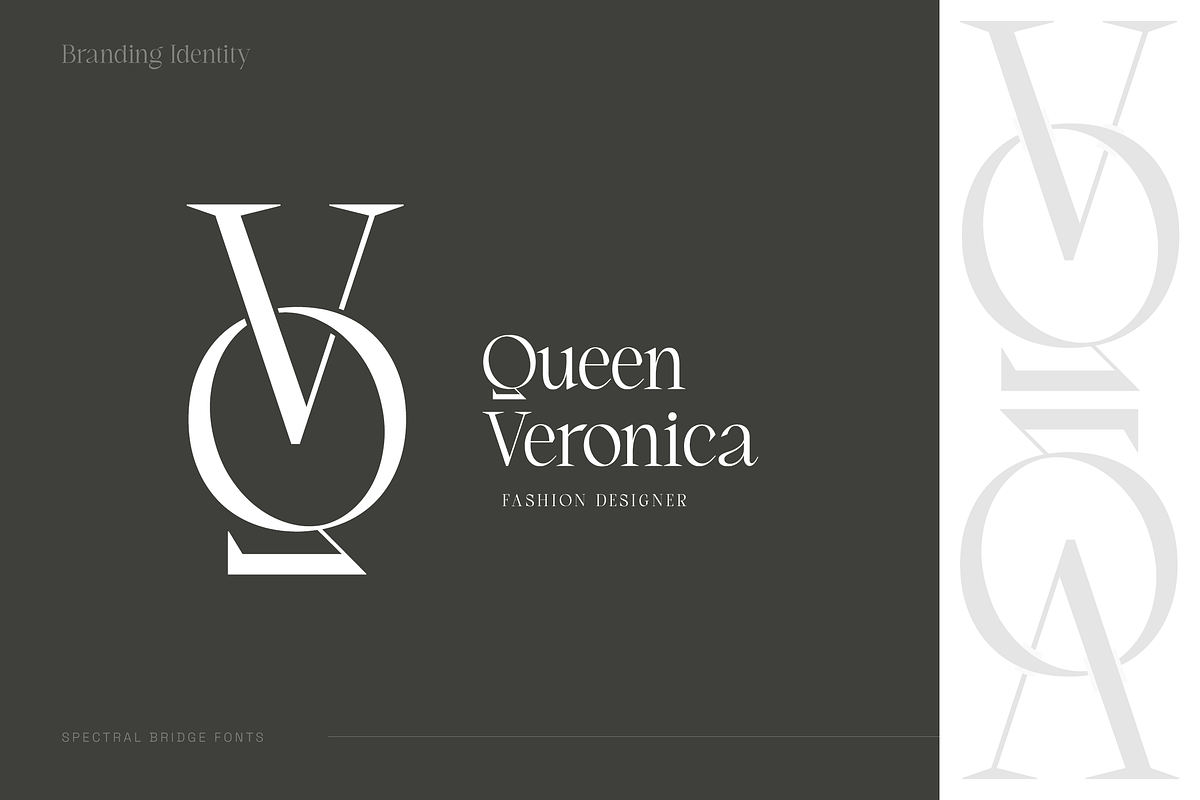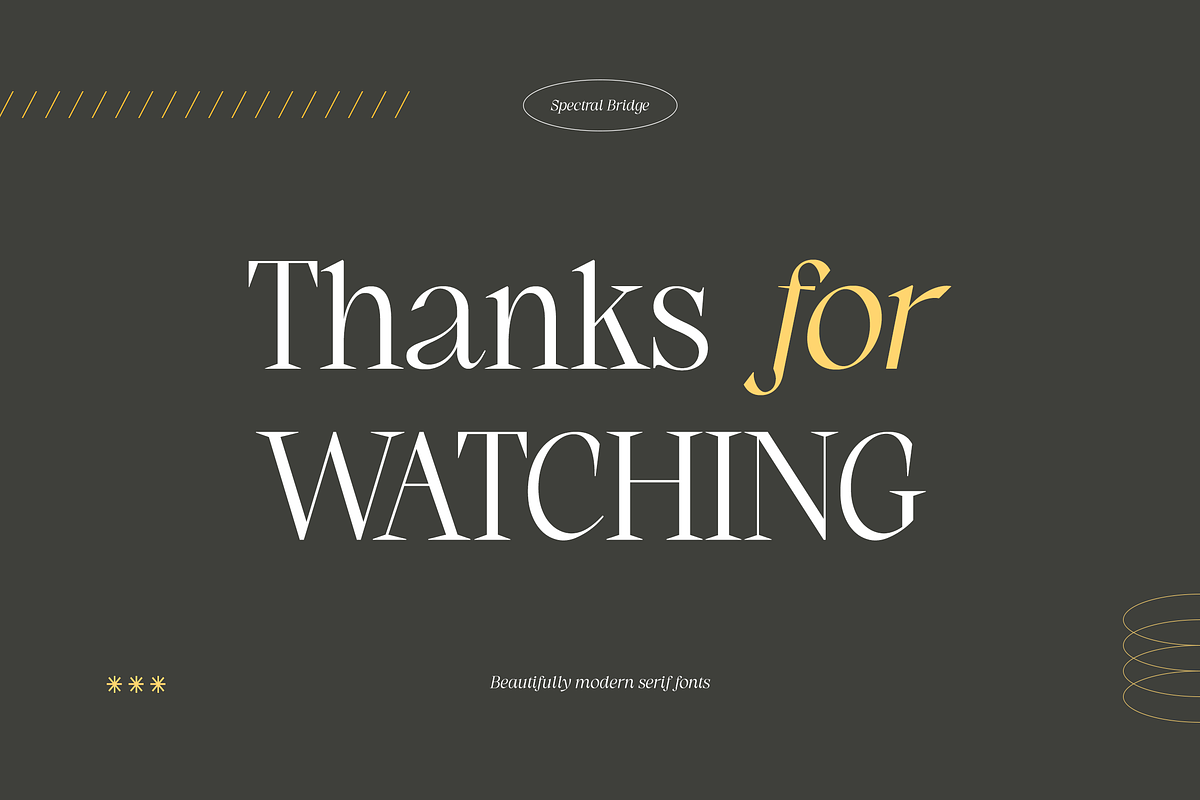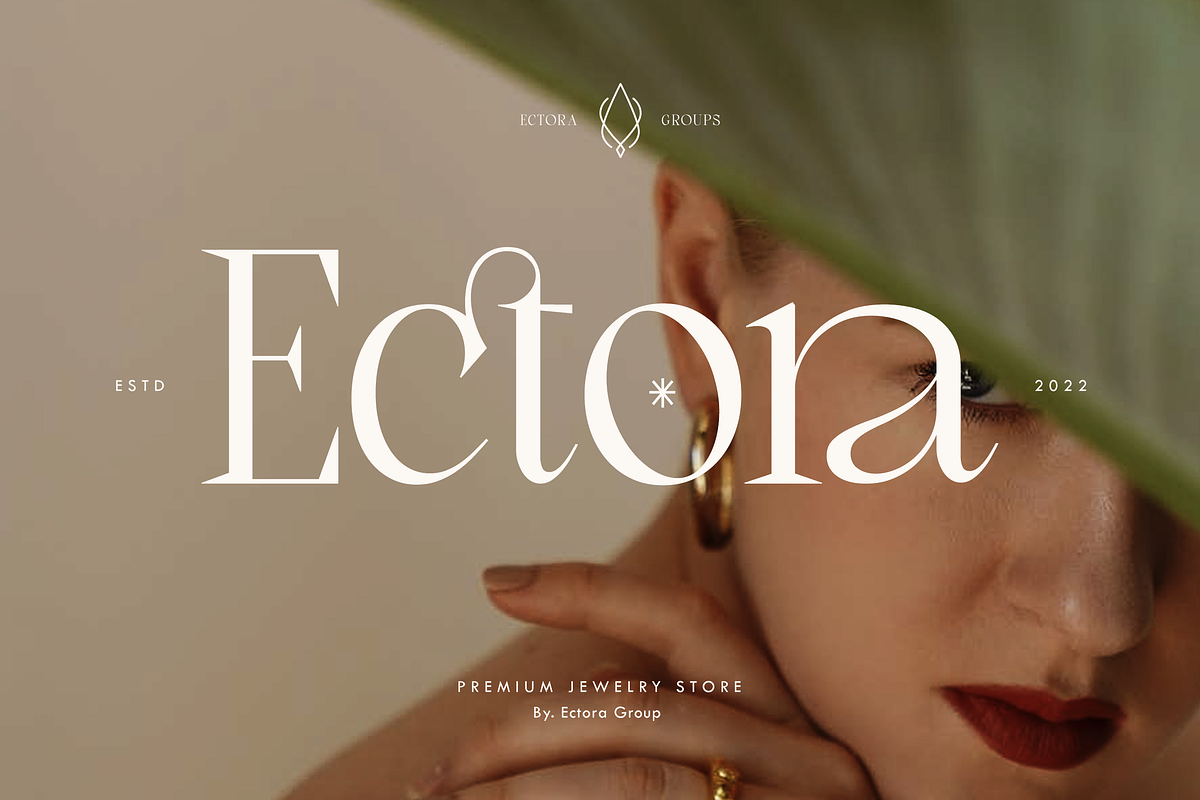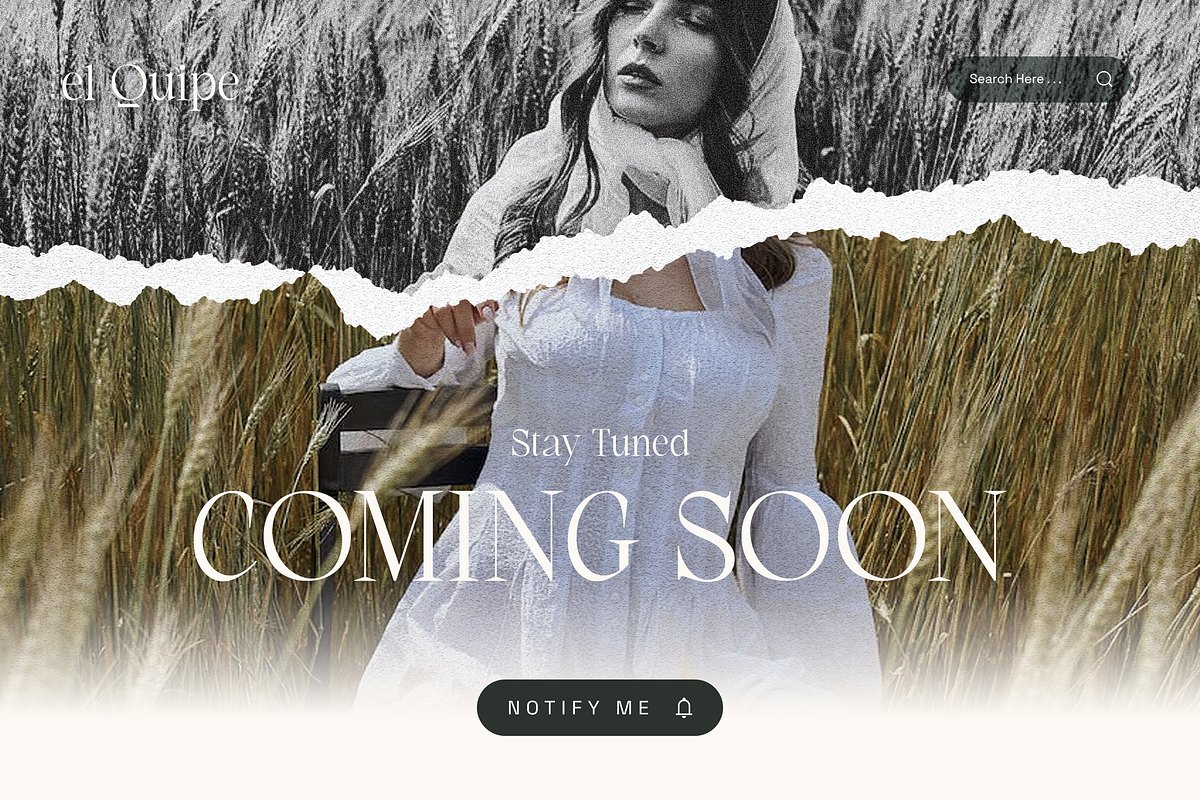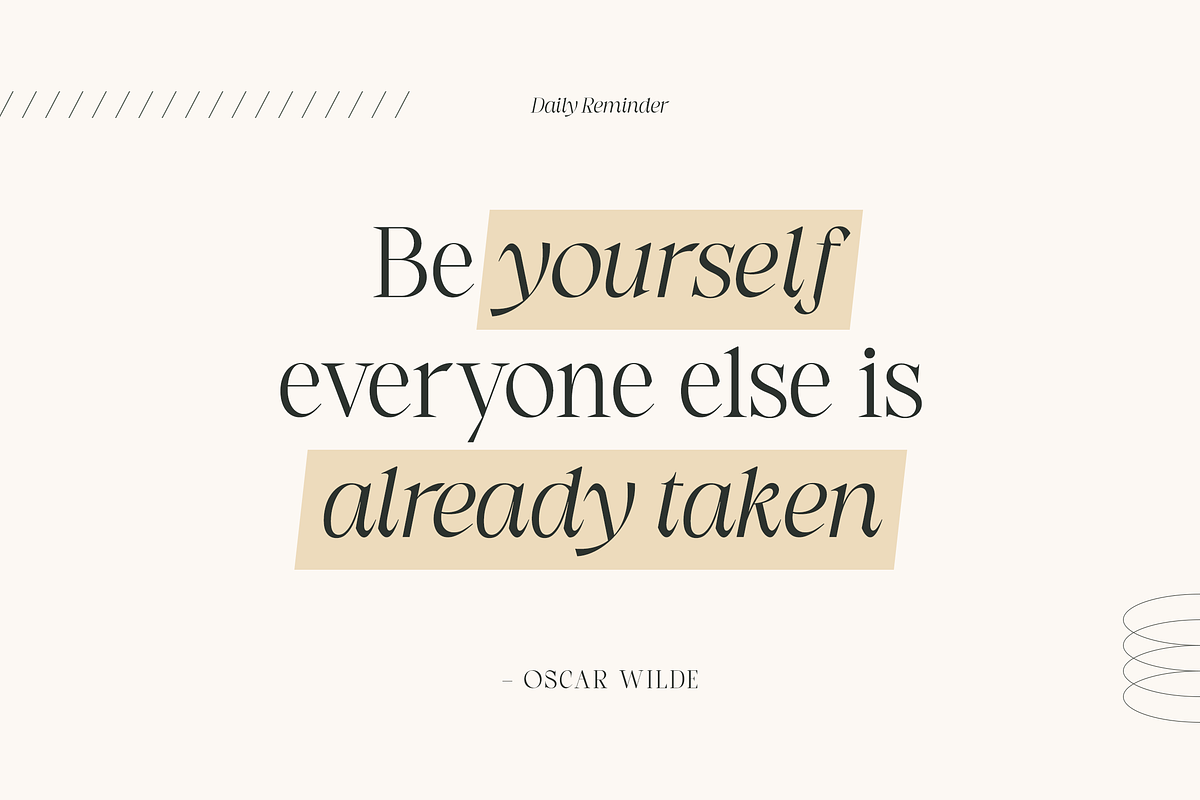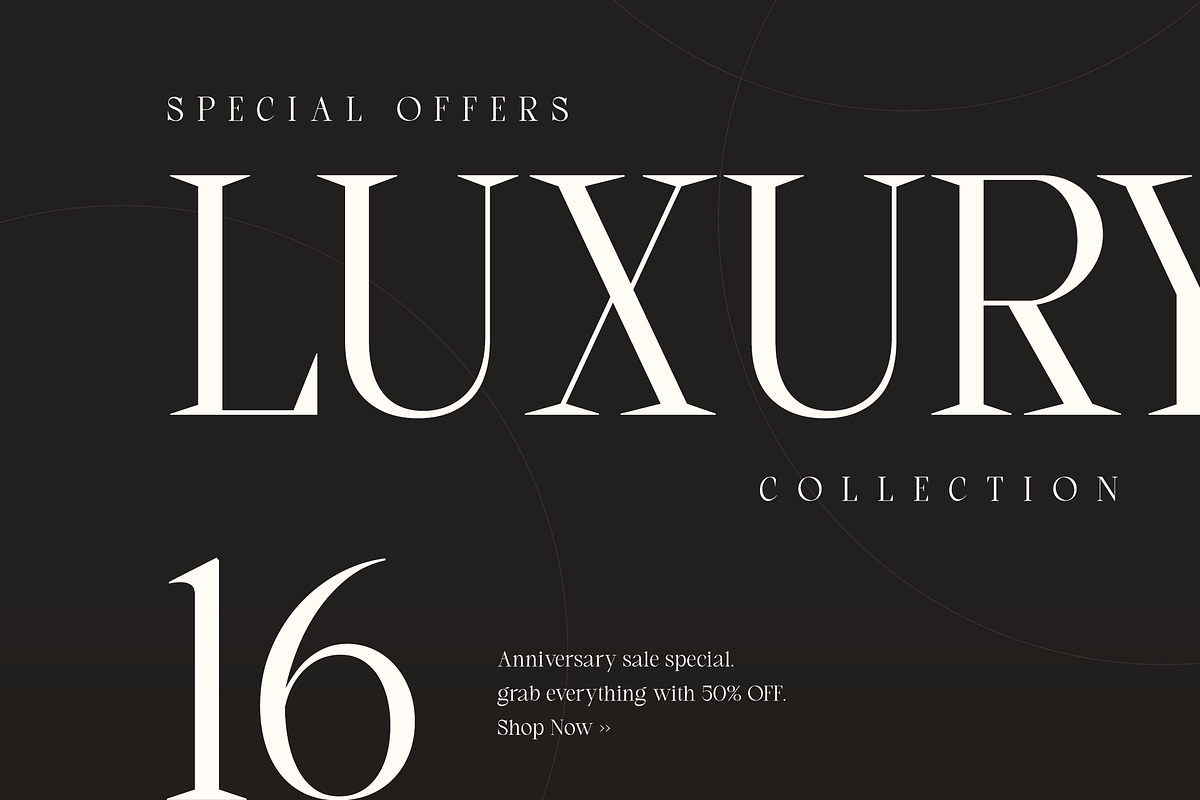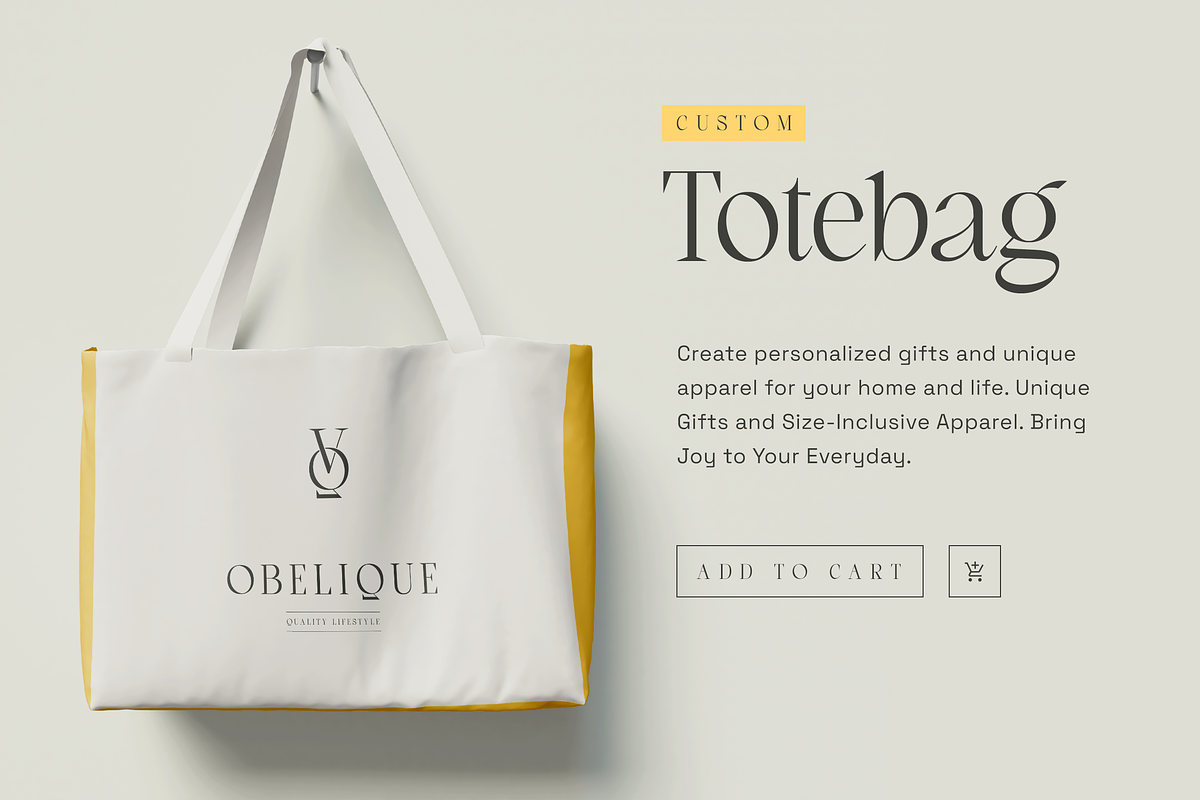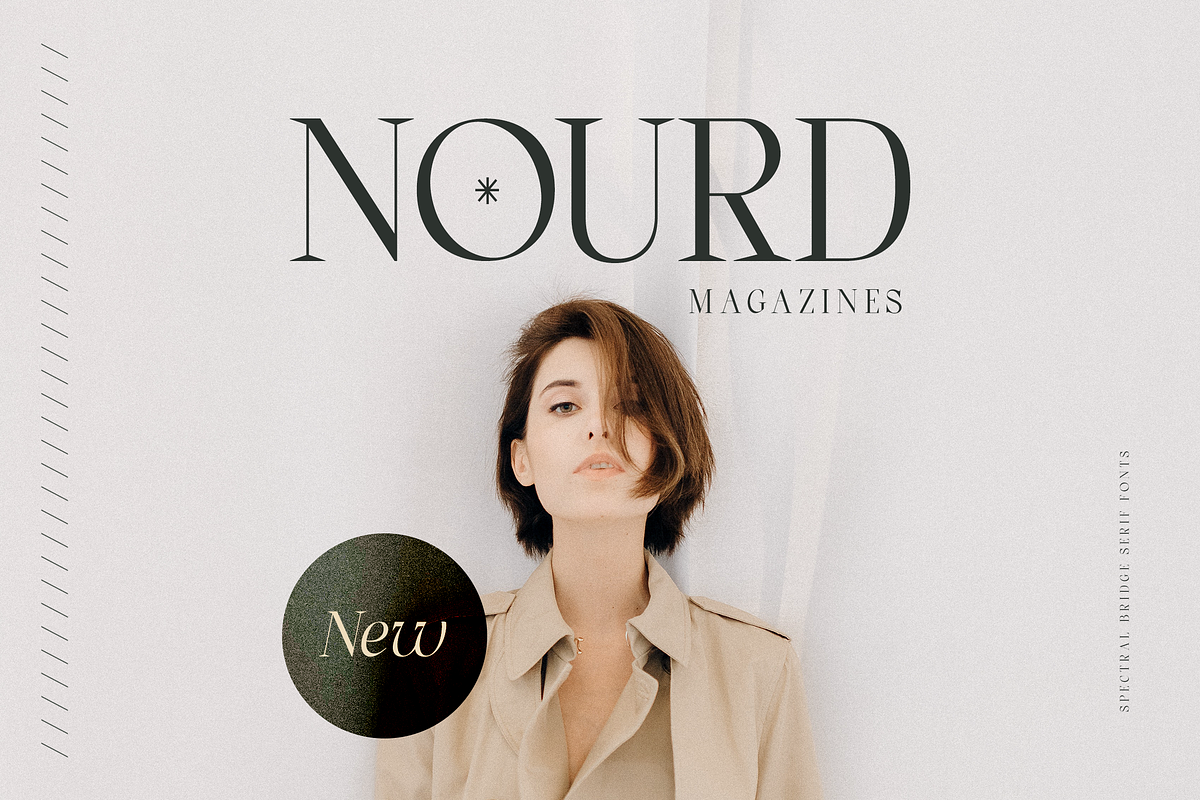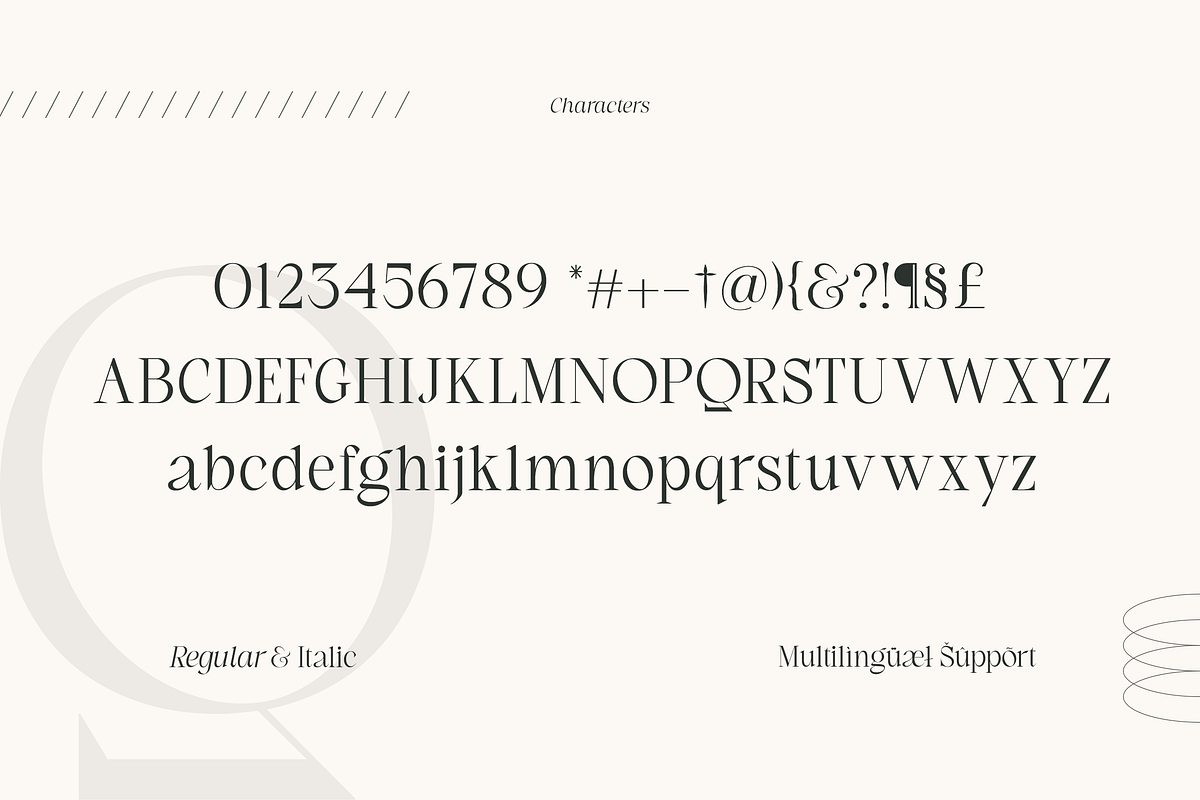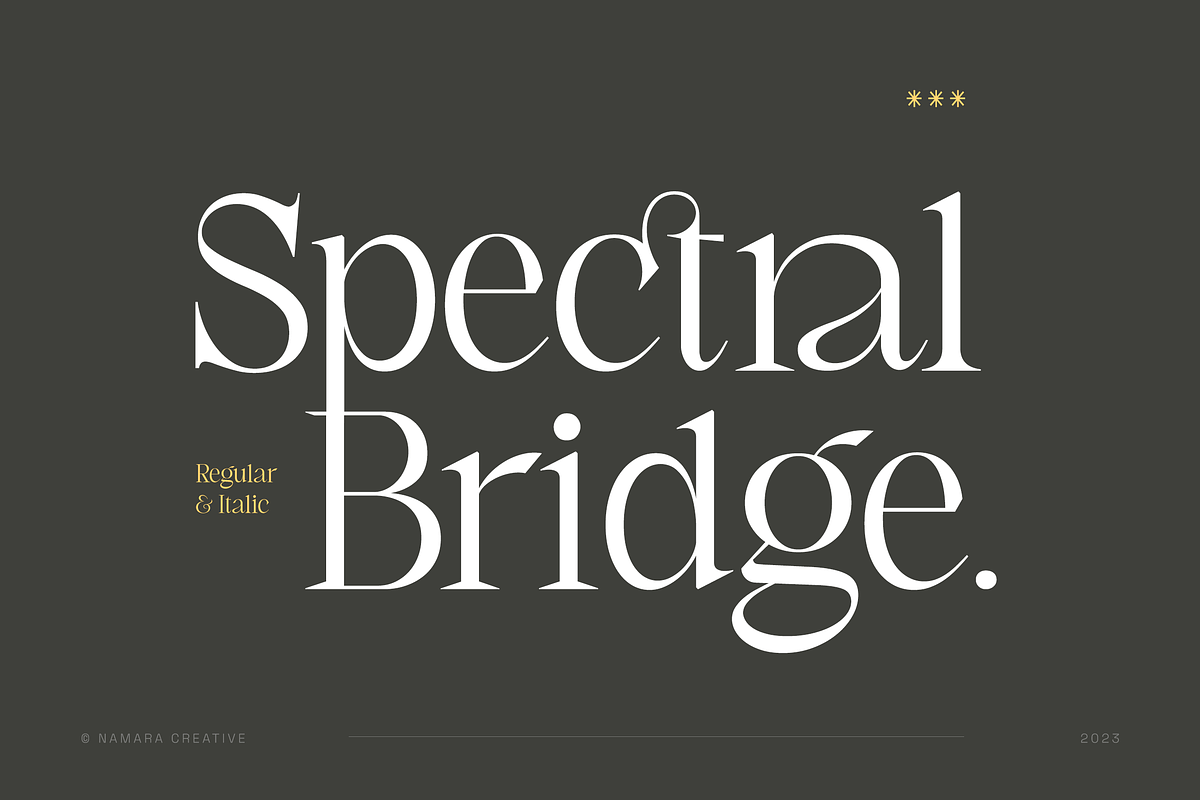
Spectral Bridge - Modern Serif
Spectral Bridge is a strong serif inspired by timeless elegance and luxurious appeals. Come in 2 styles: Regular and Italic. Feel free to mix & match with style, alternates, and also ligatures. Combined sharp and soft appeals, make a versatile typeface that will fit any project such as branding, lettering, quotes, print design, and much more.
- Alternates, Ligatures & Multilingual Support
- Modern, Classy & Luxury Theme Font